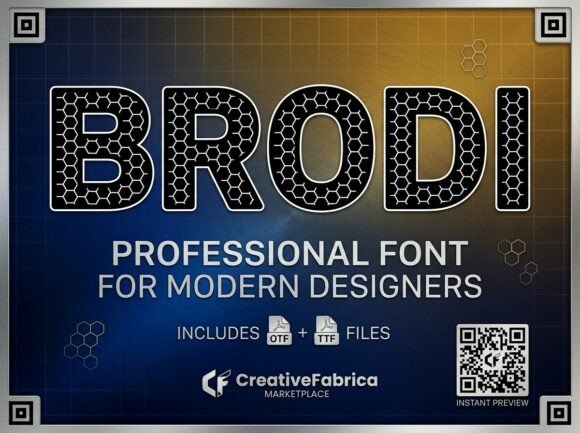
Unleash Your Creativity with the Bold and Beautiful Brodi Font
You know that moment when you’re working on a project, and the perfect font just clicks? For designers, finding that perfect combination of style and functionality can make all the difference. Imagine being able to add a touch of sophistication and elegance to your designs with a single font.
Enter the Brodi Font, a stunning decorative display font designed to be the center of attention. With its unique artistic elements and strong visual personality, this font is perfect for creators who want to break away from the ordinary. Whether you’re looking to create bold headlines, artistic logos, or creative packaging, the Brodi Font is a valuable addition to any designer’s toolkit.
Brodi Font Key Features
- Unique Characteristics: The Brodi Font boasts a unique blend of modern and vintage elements, featuring elegant curves, subtle texture, and a touch of sophistication.
Designer Review: Brodi Font
When I first laid eyes on the Brodi Font, I was immediately drawn to its unique blend of modern and vintage elements. The font has a certain charm that sets it apart from more generic sans-serif fonts. ✨
The Brodi Font’s versatility is one of its strongest suits. It can be used for a wide range of applications, from digital products to print materials, and it always looks great. I’ve used it for headings and body text alike, and it never fails to deliver. ✨
However, the Brodi Font does have a few limitations. ⚠️ For one, it can be quite busy at smaller font sizes, making it difficult to read. Additionally, some of the characters may not be compatible with certain font rendering engines, which can lead to inconsistent display. ⚠️
- Unique blend of modern and vintage elements
- Highly versatile and suitable for various applications
- Easy to read at larger font sizes
Limits and Considerations:
- May appear busy at smaller font sizes
- Some characters may not be compatible with certain font rendering engines
Overall, I think the Brodi Font is a great addition to any designer’s toolkit. While it may have some limitations, its unique charm and versatility make it a solid choice for a wide range of projects. If you’re looking for a font that will add some personality to your designs, I’d definitely recommend giving Brodi a try.
Tips for Getting the Most Out of Brodi Font
Use Brodi font for headings, titles, and body text to create a cohesive and visually appealing design.
Choose the right font size and color to make your text stand out.
Experiment with different font styles, such as bold, italic, and underlined, to add emphasis and create visual interest.
Brodi font is suitable for:
– Creative projects, such as graphic design, digital art, and photography.
– Business projects, such as presentations, reports, and marketing materials.
– Educational projects, such as student projects, academic papers, and presentations.
Alternatives to Brodi Font
Playfair Display is a luxurious, high-end serif font ideal for creating elegant and sophisticated designs. It features intricate details and ornate flourishes, making it perfect for use in high-end branding, advertising, and packaging.
Compared to Brodi Font, Playfair Display has a more refined and classical feel, while Brodi Font has a more modern and minimalist aesthetic. Playfair Display is suitable for use in formal and high-end designs, whereas Brodi Font is better suited for casual and modern designs.
Lato is a modern sans-serif font designed for digital media. It features clean lines, geometric shapes, and a high x-height, making it perfect for use in digital interfaces, signage, and advertising.